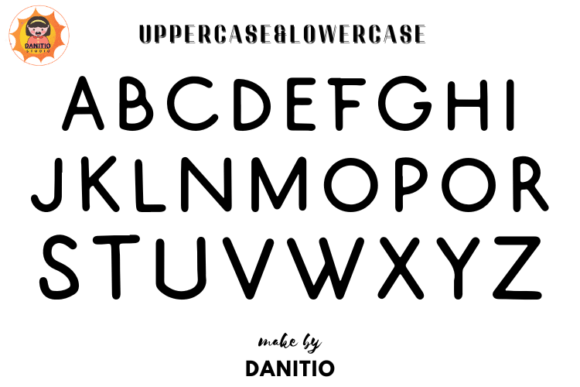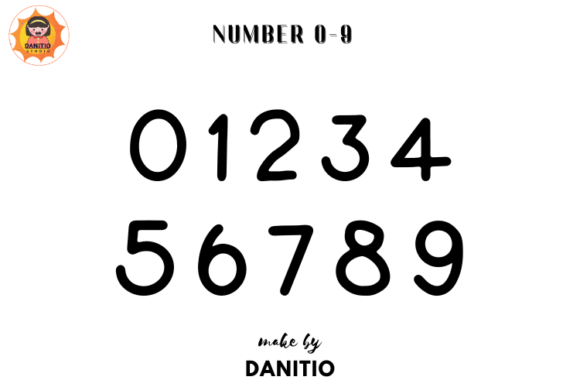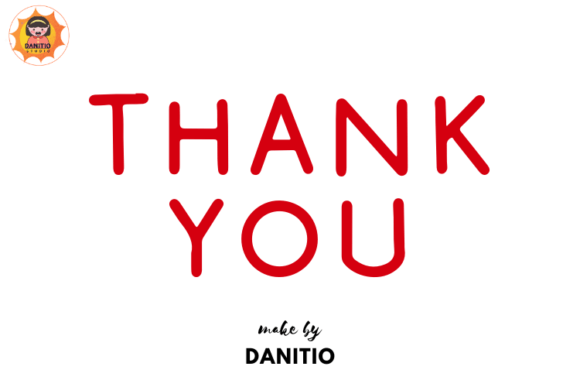
Introducing Accord Font: The Cute Handwritten Font for Your Creative Projects
Are you a designer or crafter looking for a font that adds a personal touch to your projects? Look no further than Accord Font! This adorable handwritten font is perfect for creating visually appealing content for social media, invitations, flyers, posters, and more. With its simple and natural appearance, Accord Font is sure to capture the hearts of your audience.
What Makes Accord Font Special?
Accord Font boasts a beautiful and balanced appearance that makes it versatile for various design projects. Its cute and handwritten style gives your content a friendly and approachable feel, making it ideal for:
• Social media graphics: Add a personal touch to your social media posts and stories with Accord Font.
• Invitations: Create beautiful and elegant invitations for weddings, parties, and other special events.
• Flyers: Design eye-catching flyers for promotions, events, or services.
• Posters: Create stunning posters for advertising, marketing, or decorative purposes.
• And more: Use Accord Font for crafting, scrapbooking, and other creative projects.
Key Features of Accord Font
Here are some key features that make Accord Font a great addition to your design toolkit:
• Handwritten style: Accord Font has a natural, handwritten look that adds a personal touch to your designs.
• Simple and elegant: The font’s simple and balanced appearance makes it easy to read and visually appealing.
• Versatile: Use Accord Font for a wide range of design projects, from digital to print.
Tips for Using Accord Font Effectively
To get the most out of Accord Font, here are some tips to keep in mind:
• Pair with other fonts: Combine Accord Font with other fonts to create a unique and visually appealing typography.
• Experiment with colors: Try out different color schemes to find the perfect match for your design.
• Play with sizes: Use Accord Font in various sizes to create visual hierarchy and emphasis.
• Add embellishments: Consider adding illustrations, graphics, or textures to enhance your design.